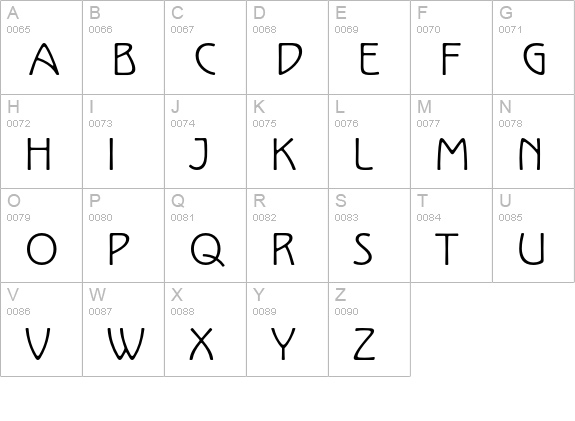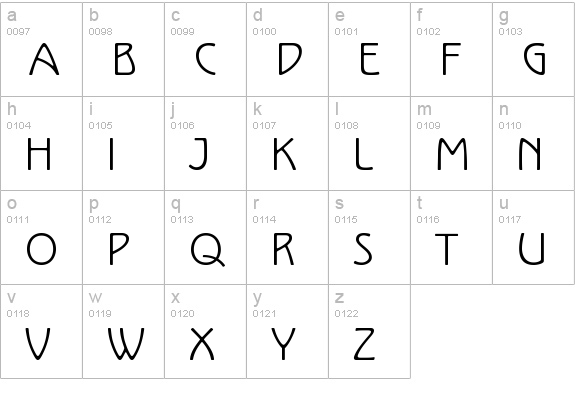
KoloRegular Font Details
KoloRegular is a versatile and modern font that exudes elegance and sophistication. Its clean lines and balanced proportions make it ideal for a wide range of design projects, from branding to packaging to editorial layouts. With its timeless appeal, KoloRegular is sure to make a lasting impression on your audience. Best of all, KoloRegular is available for free download at FontsMarket.com. This means you can easily access this high-quality font and use it in your designs without any cost. Don't miss out on the opportunity to enhance your projects with the beauty and versatility of KoloRegular. Download it today and elevate your design game to the next level.